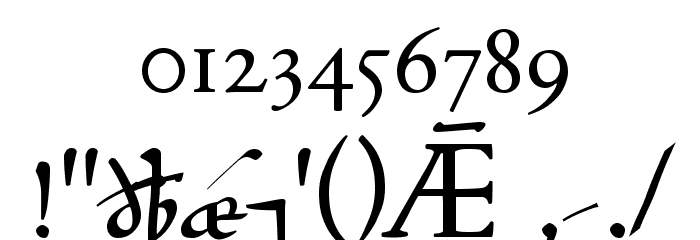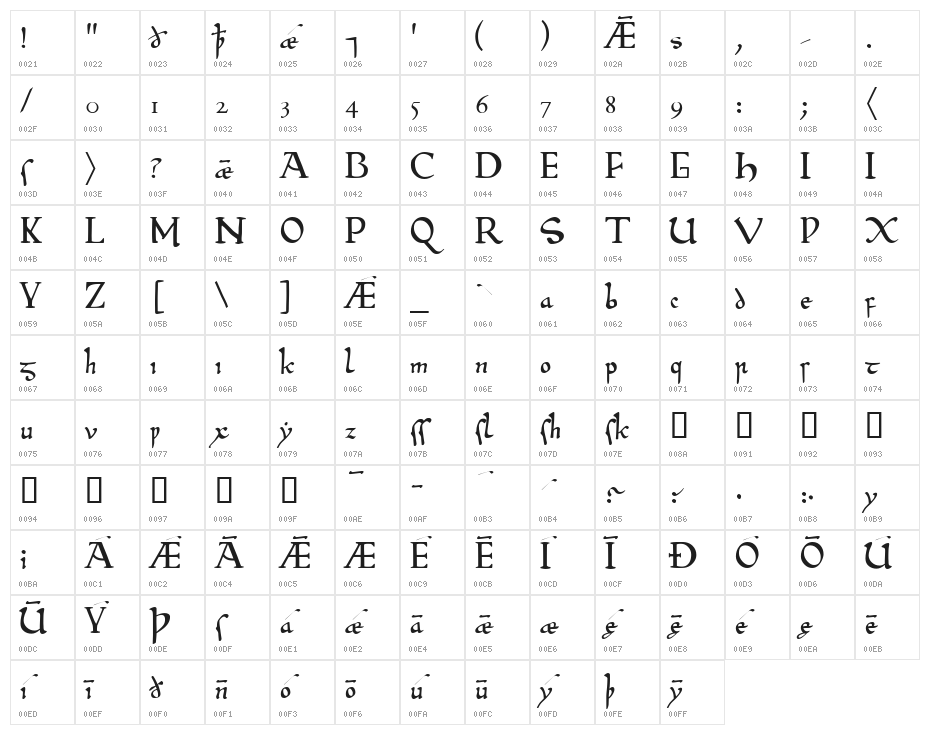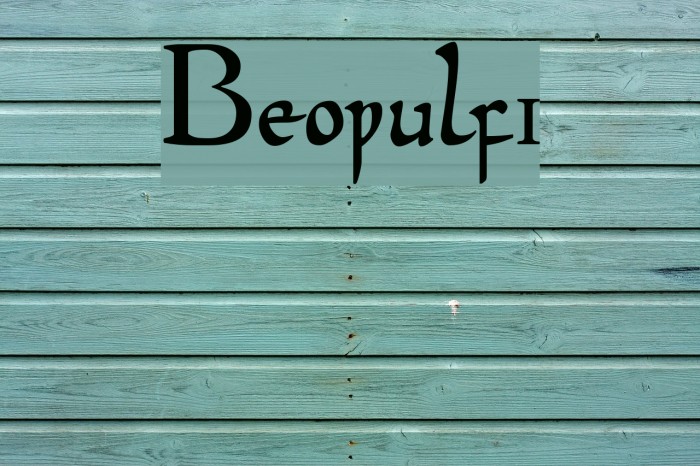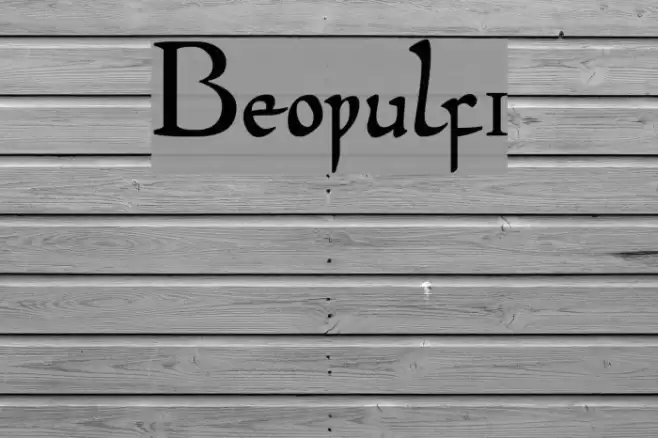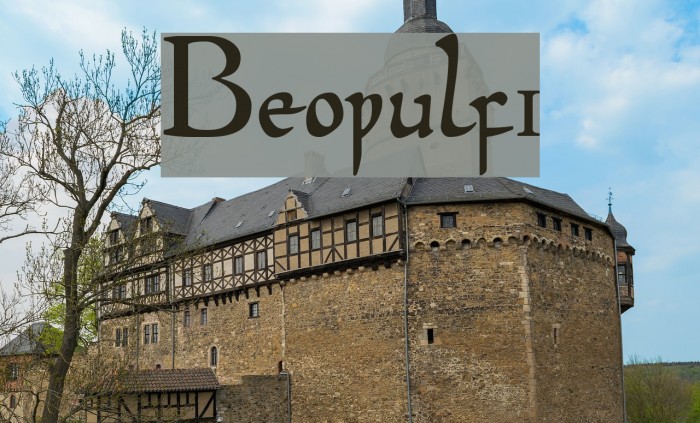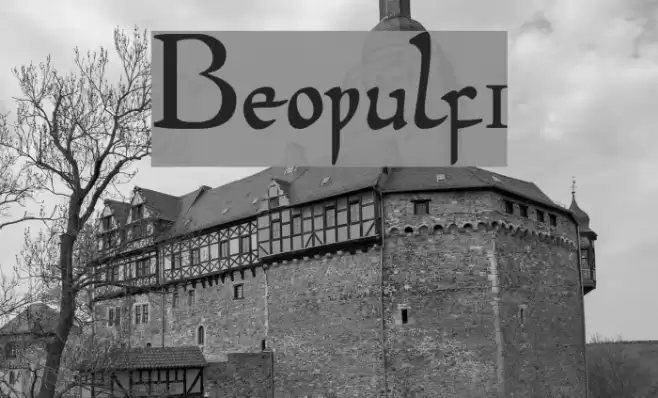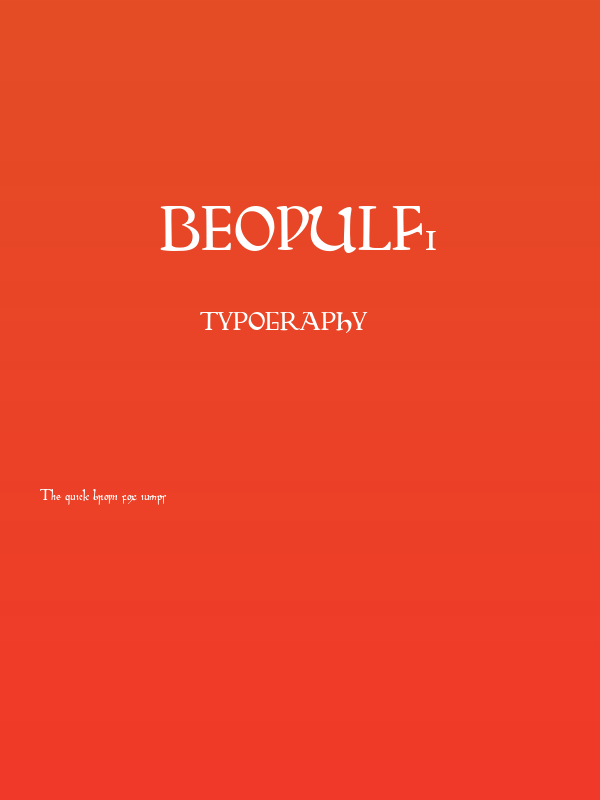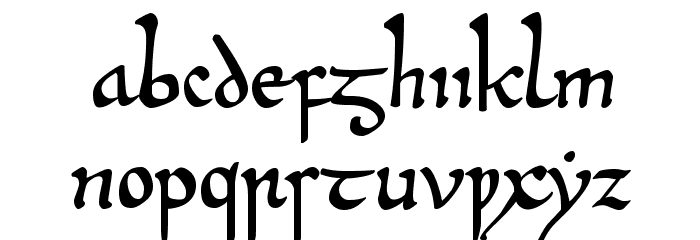
Beowulf1 Font
Beowulf1 Description
This font exudes a medieval and historical charm, reminiscent of ancient manuscripts and epic tales. The uppercase letters are bold and commanding, with a distinct flair that suggests a sense of grandeur and tradition. The lowercase letters maintain this historic feel, with unique curves and strokes that add character and depth. Numbers are elegantly styled, maintaining the overall theme of antiquity. Special characters are thoughtfully designed, complementing the alphabet with a consistent aesthetic. The font's intricate details and stylistic elements make it ideal for projects that require a touch of the past, evoking a sense of mystery and adventure.